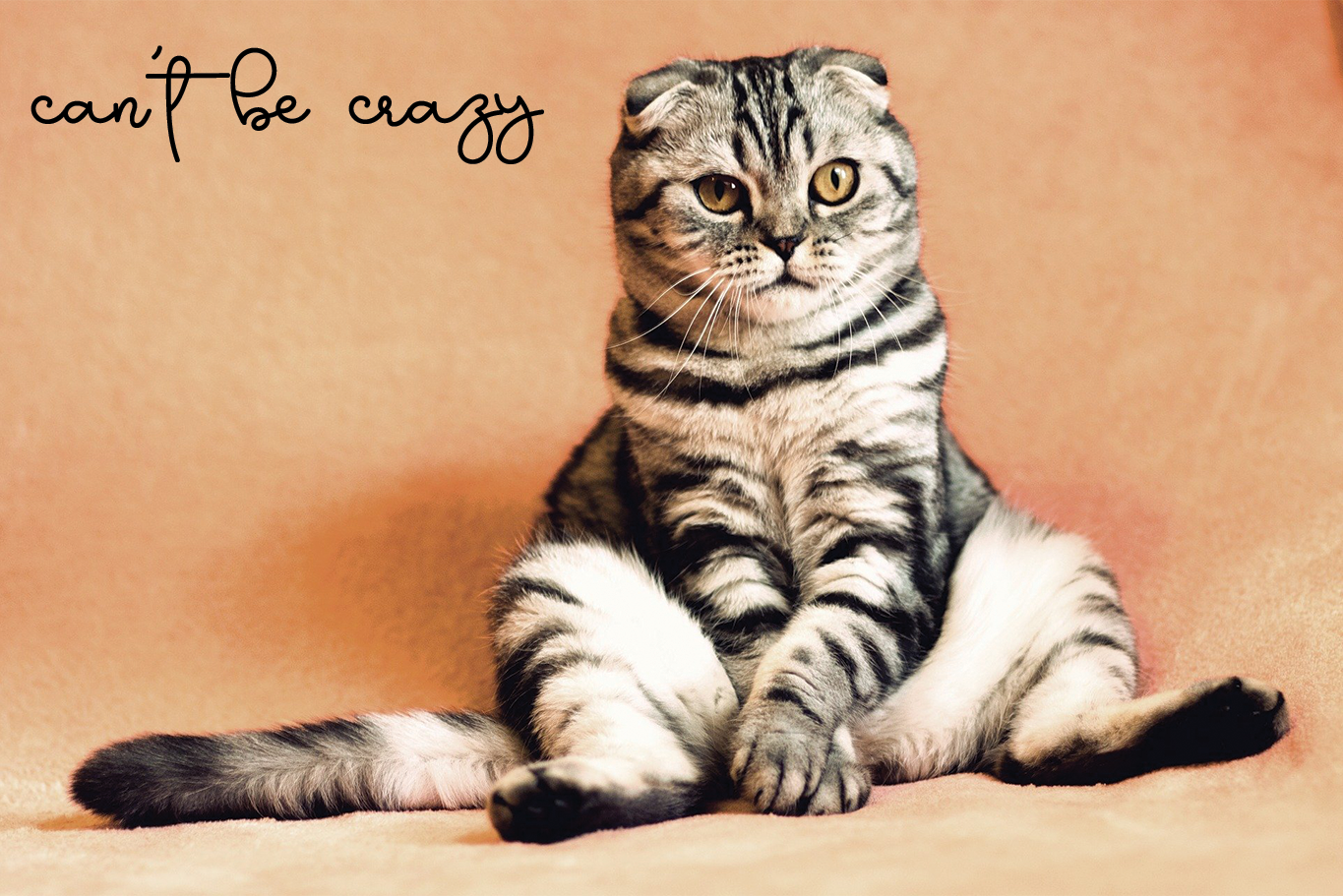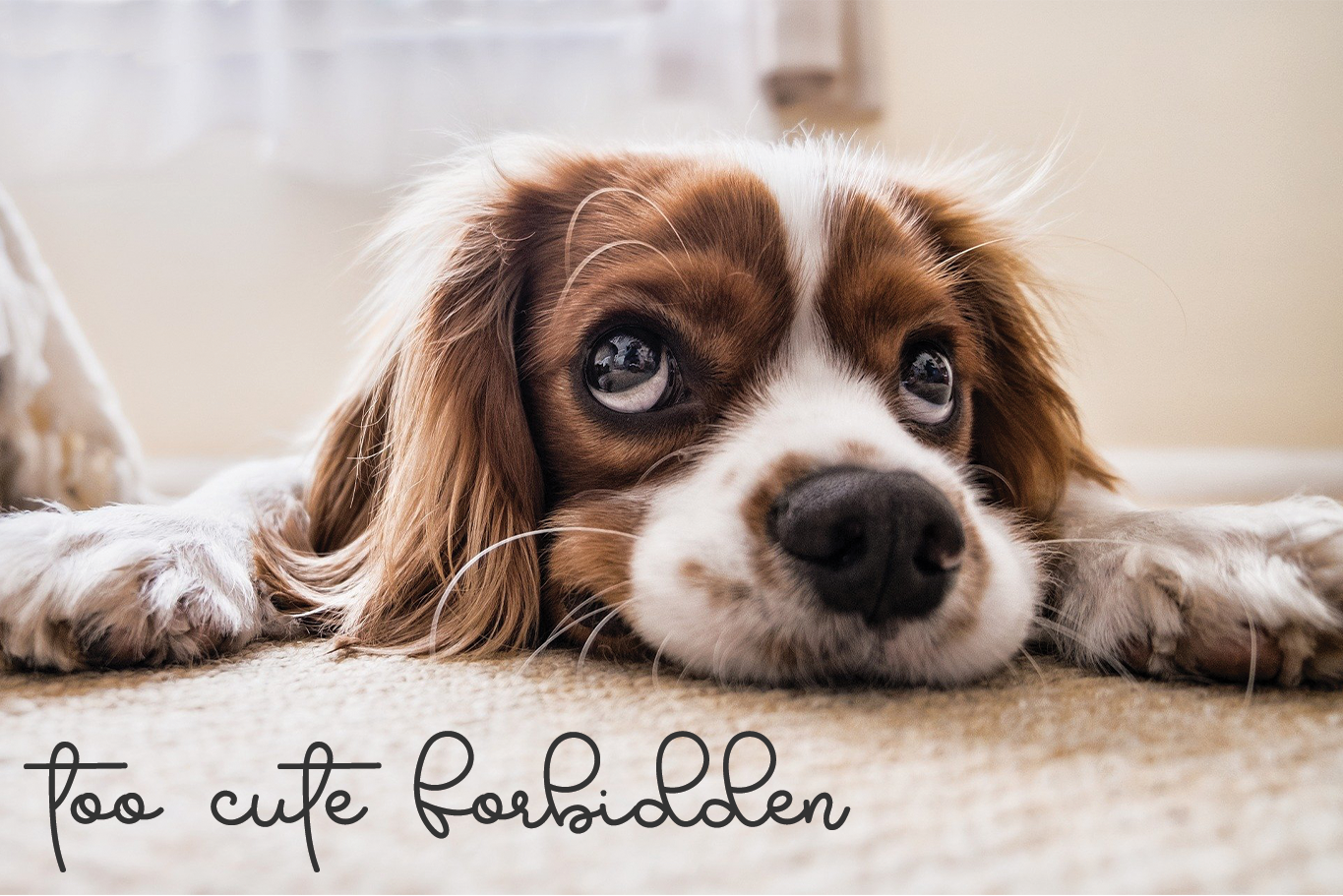
The Attention Font
The Attention Handwritten Font
This is a lovely and delicate script font that exudes elegance and class. This font was particularly crafted for those who need a beautiful and refreshing look to their designs.